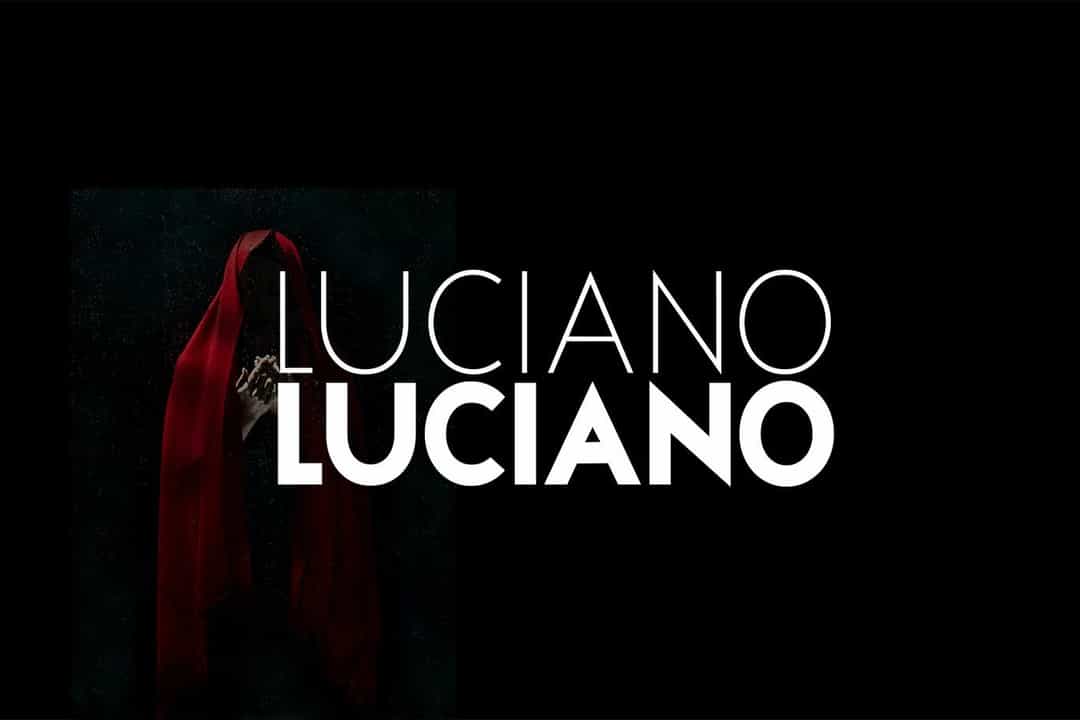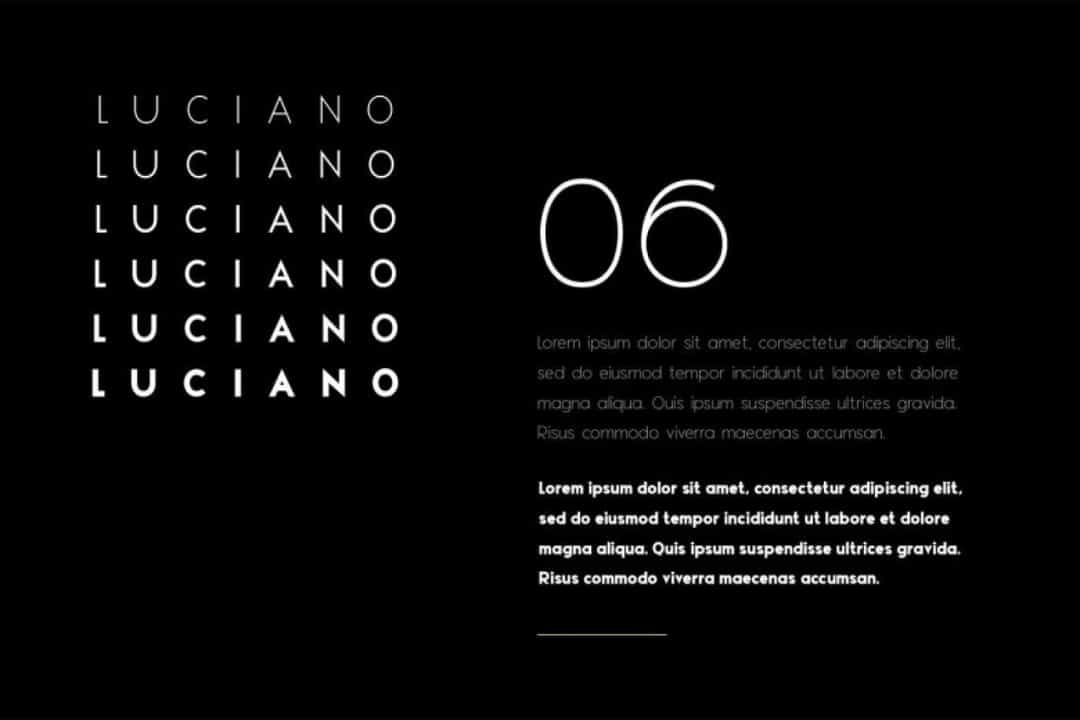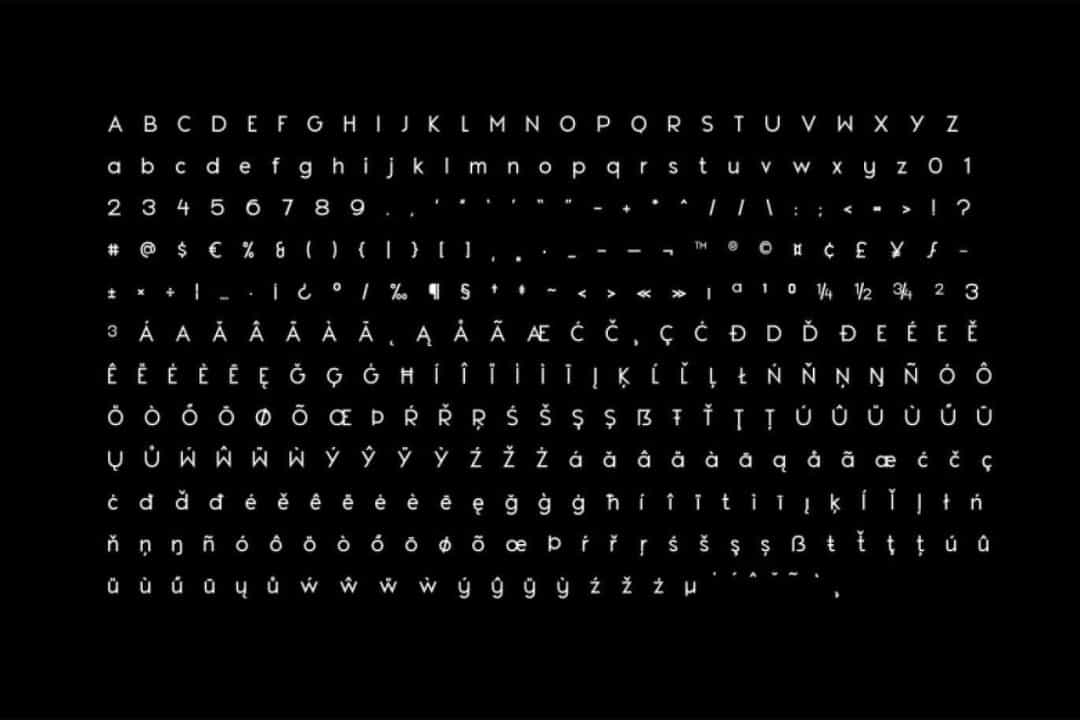
Luciano Display is an elegant modern typeface available as web fonts. This font’s flexible form makes it suitable for both small and large sizes, making Luciano an excellent choice for branding headlines, logos, headlines captions or as an eye-catching text overlay on any background photo.